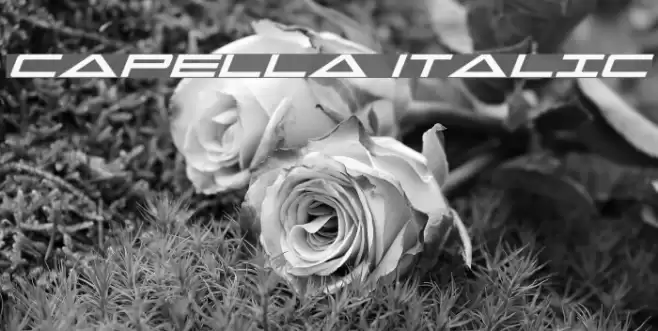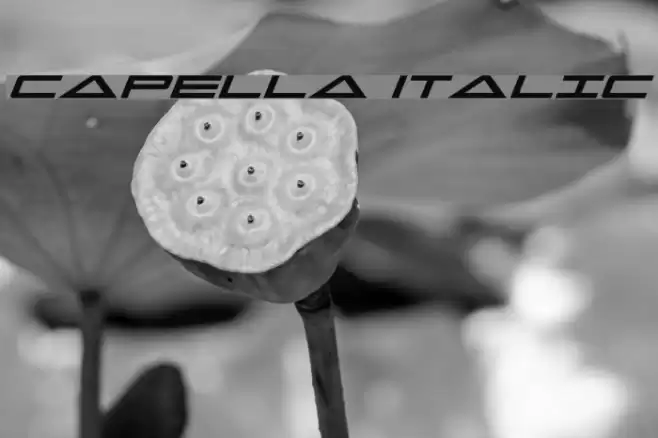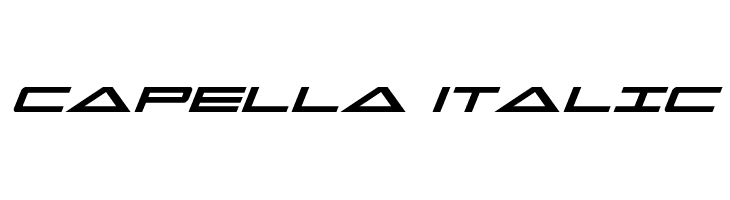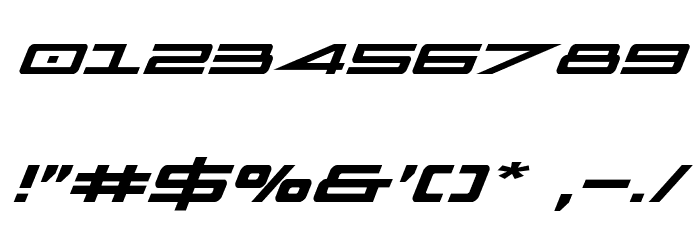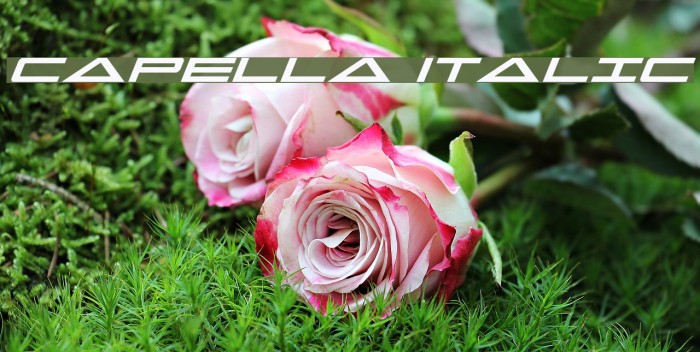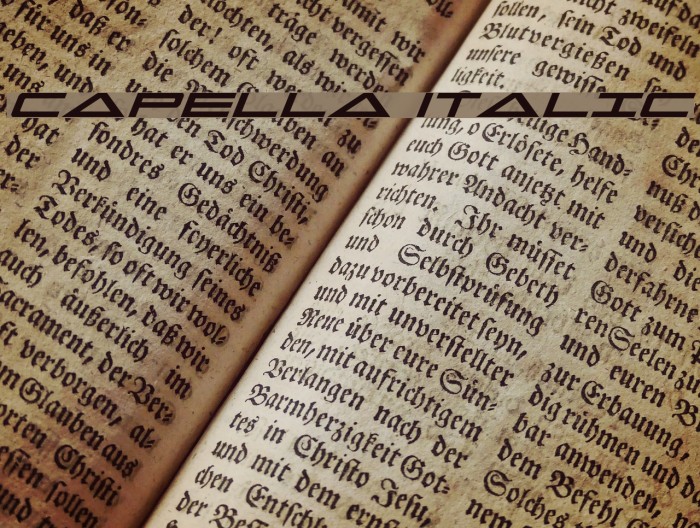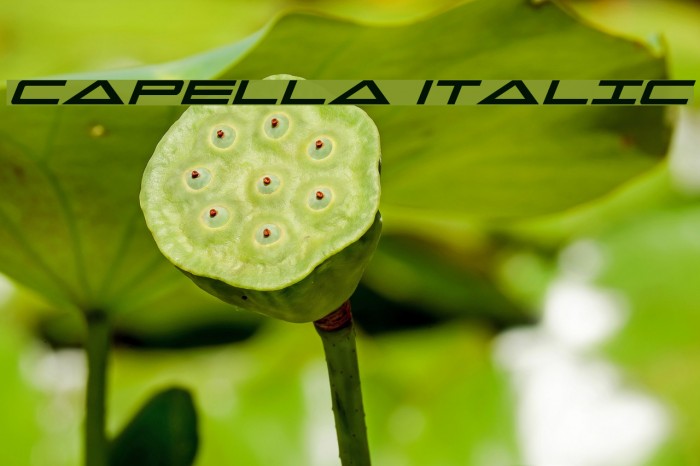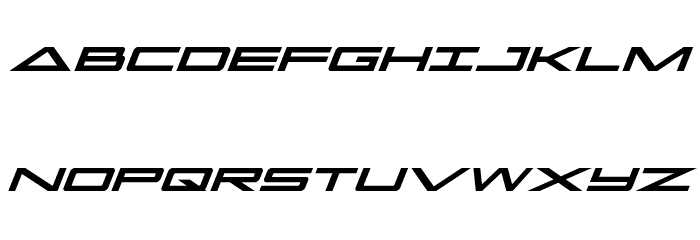
Capella Italic Font
Capella Italic Description
This font exhibits a sleek, futuristic design with a distinct italic slant, giving it a dynamic and forward-moving appearance. The characters are crafted with sharp angles and clean lines, creating a sense of speed and modernity. The uppercase letters are bold and commanding, while the lowercase letters maintain a consistent style that complements the overall aesthetic. The numerals are equally stylized, matching the angular theme of the alphabet. Special characters are designed with the same attention to detail, ensuring uniformity across all glyphs. This font is ideal for projects that require a modern, tech-inspired look.
A sleek, italic font with a futuristic and dynamic design from Uncategorized fonts.
- Proposed Projects: Ideal for technology branding, sci-fi movie posters, video game titles, and modern advertising campaigns.
- Use Case: Headlines, Logos, Display text